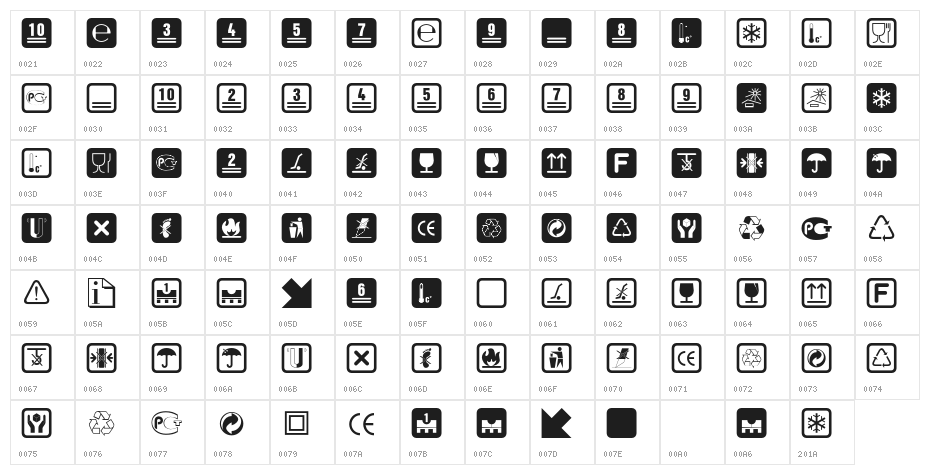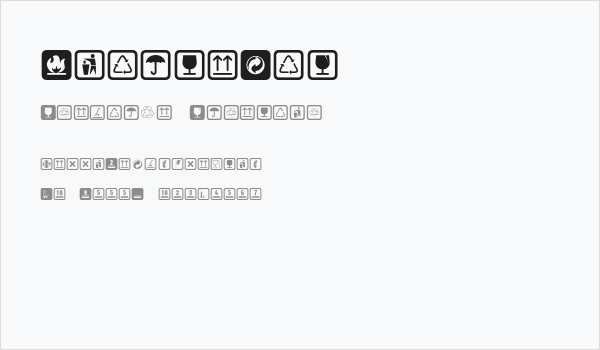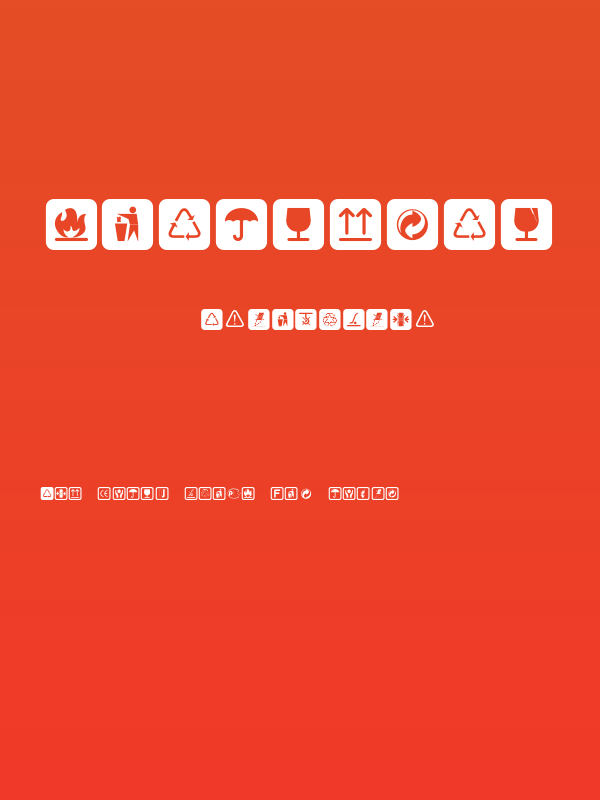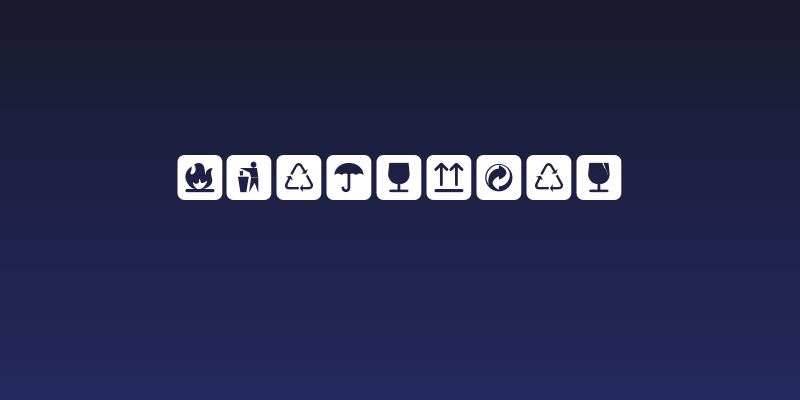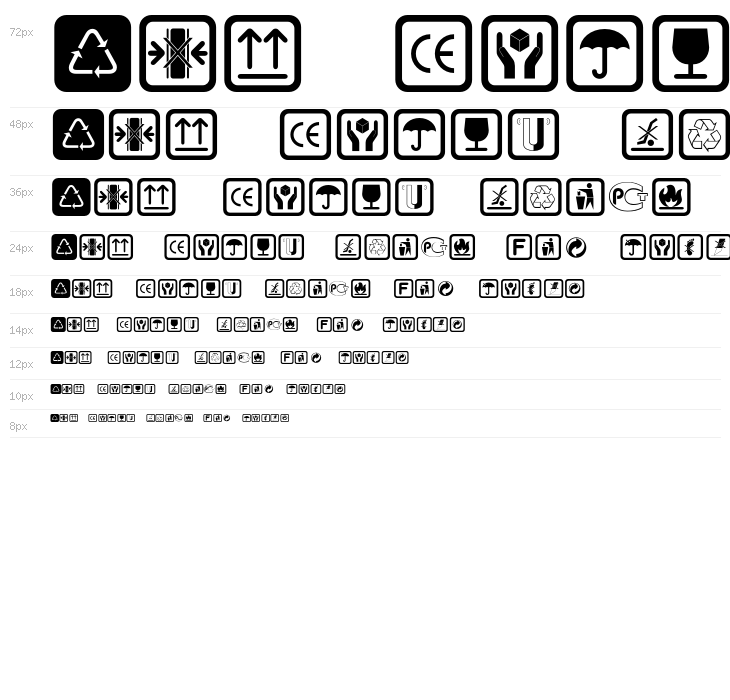
NoticeStd Font
✎ Dingbats
| Estilo general | Functional, Modern, Pictographic |
| Caso de uso | Labels, Signage, Manuals, Packaging |
| Proyectos propuestos | Product packaging, shipping labels, instruction manuals, recycling guides, safety signage. |